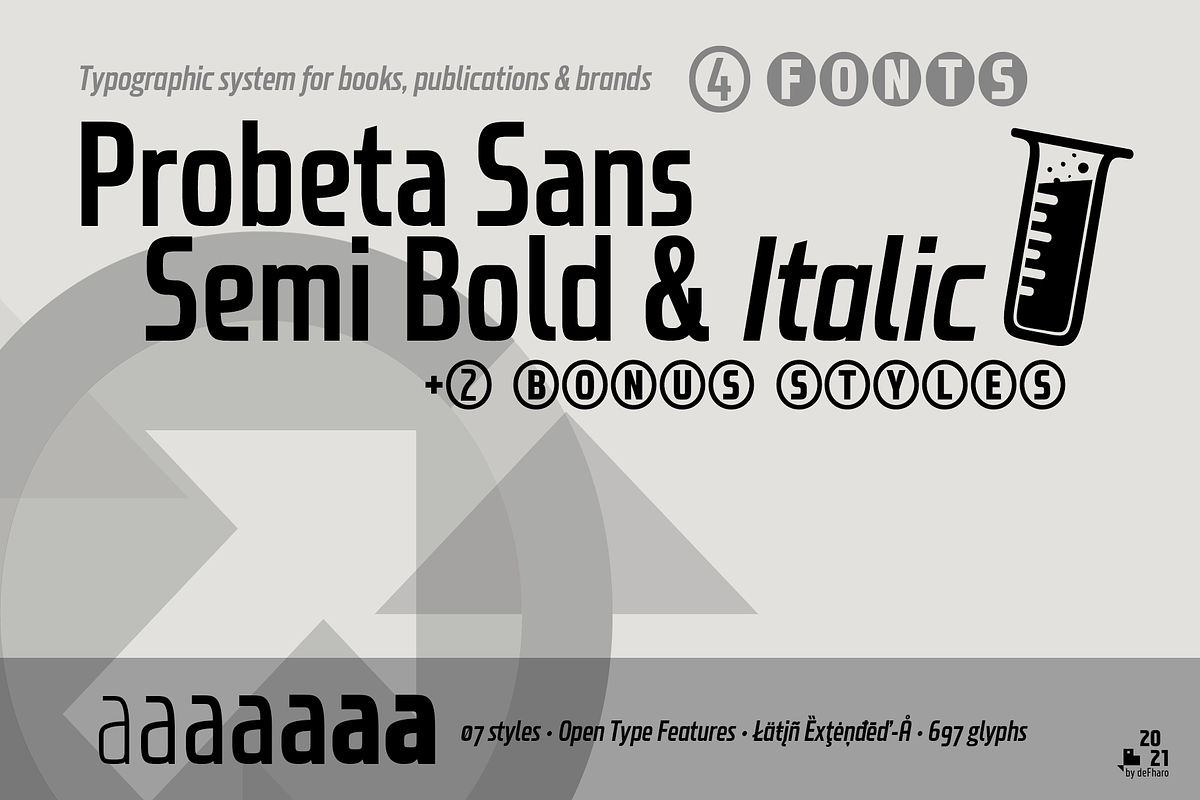
Probeta Semi Bold & Italic - 4 Fonts Free Download is a versatile and modern font family that includes four distinct styles: Semi-Bold and Italic variations. With clean lines, high legibility, and professional design, this font is perfect for a wide range of applications, including branding, headlines, editorial design, and websites.
Probeta Semi Bold & Italic - 4 Fonts Free Download offers excellent versatility, allowing you to create strong typographic hierarchies with the different styles. Its semi-bold weight gives your text presence without being too heavy, while the italic style provides a dynamic, slanted feel for emphasis and variety.